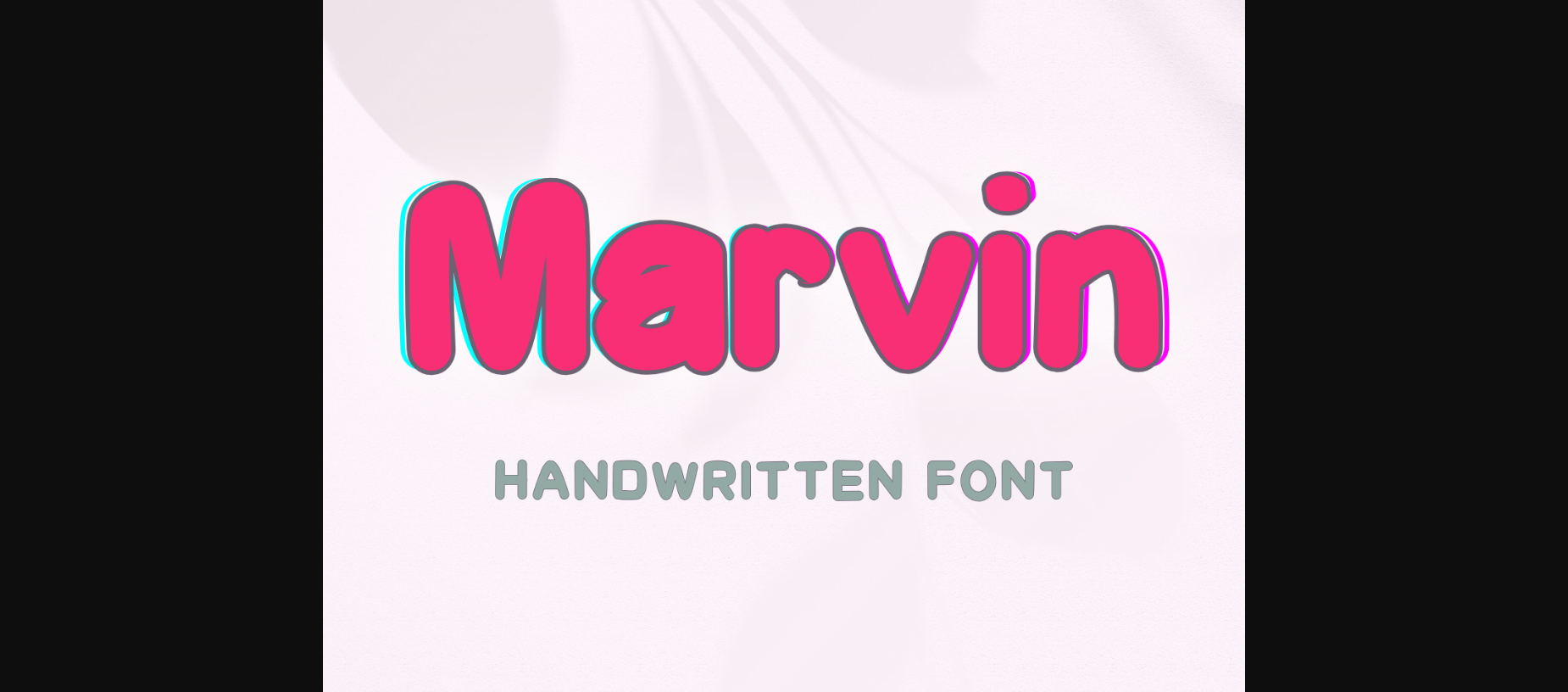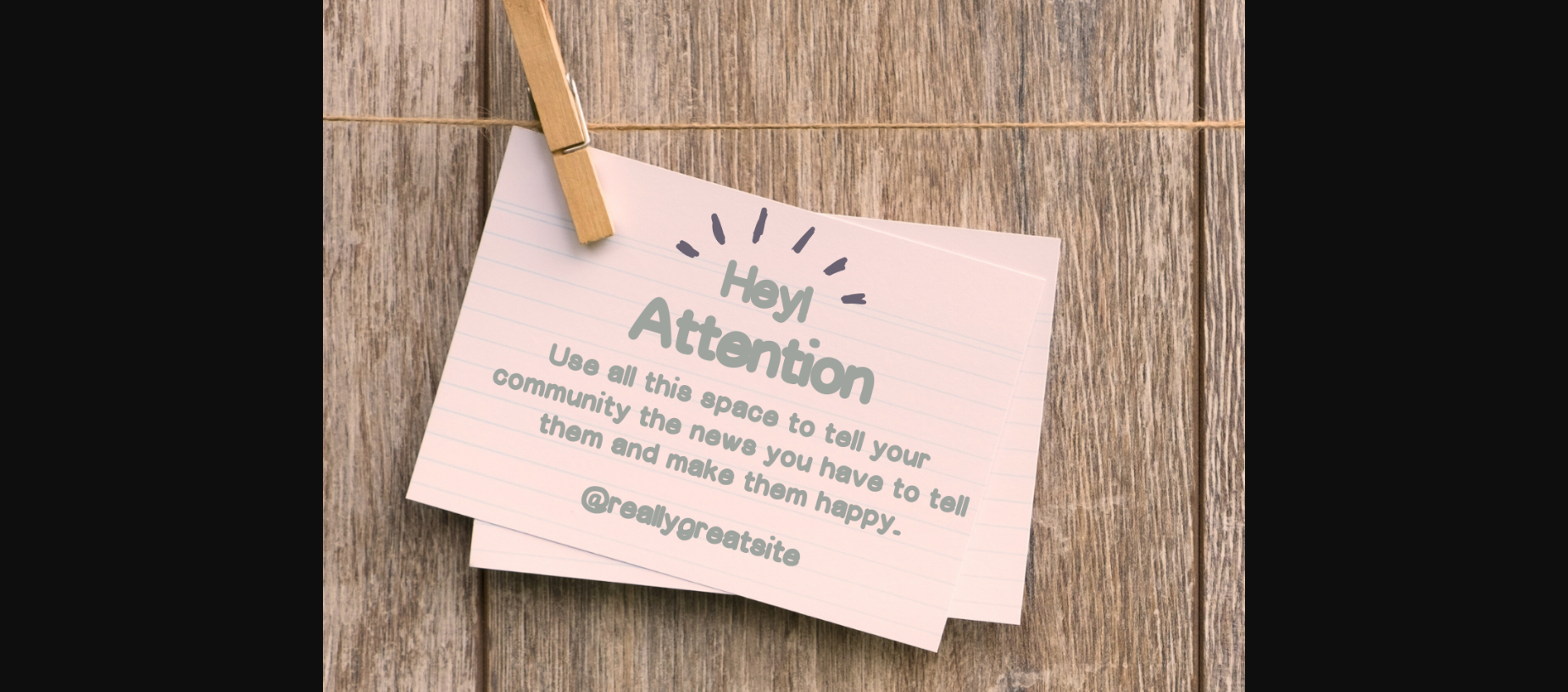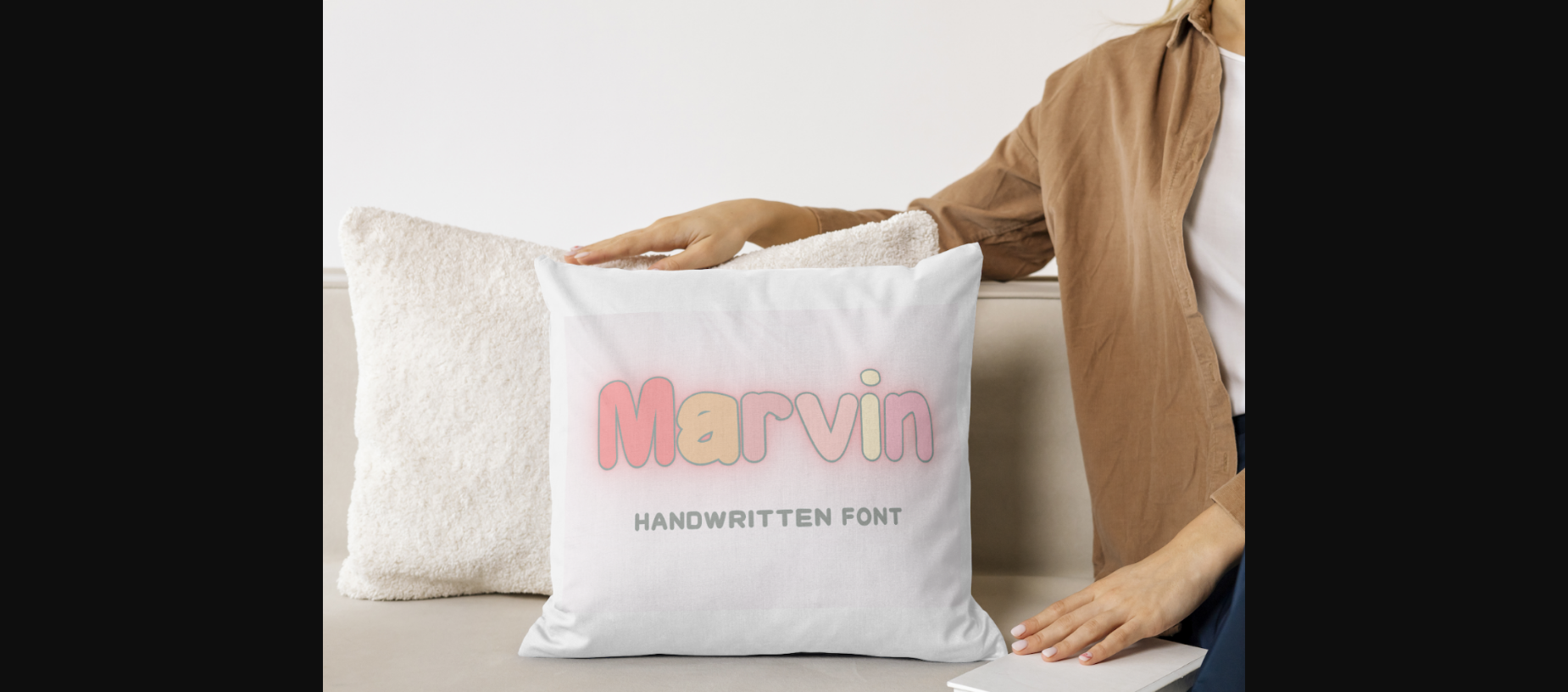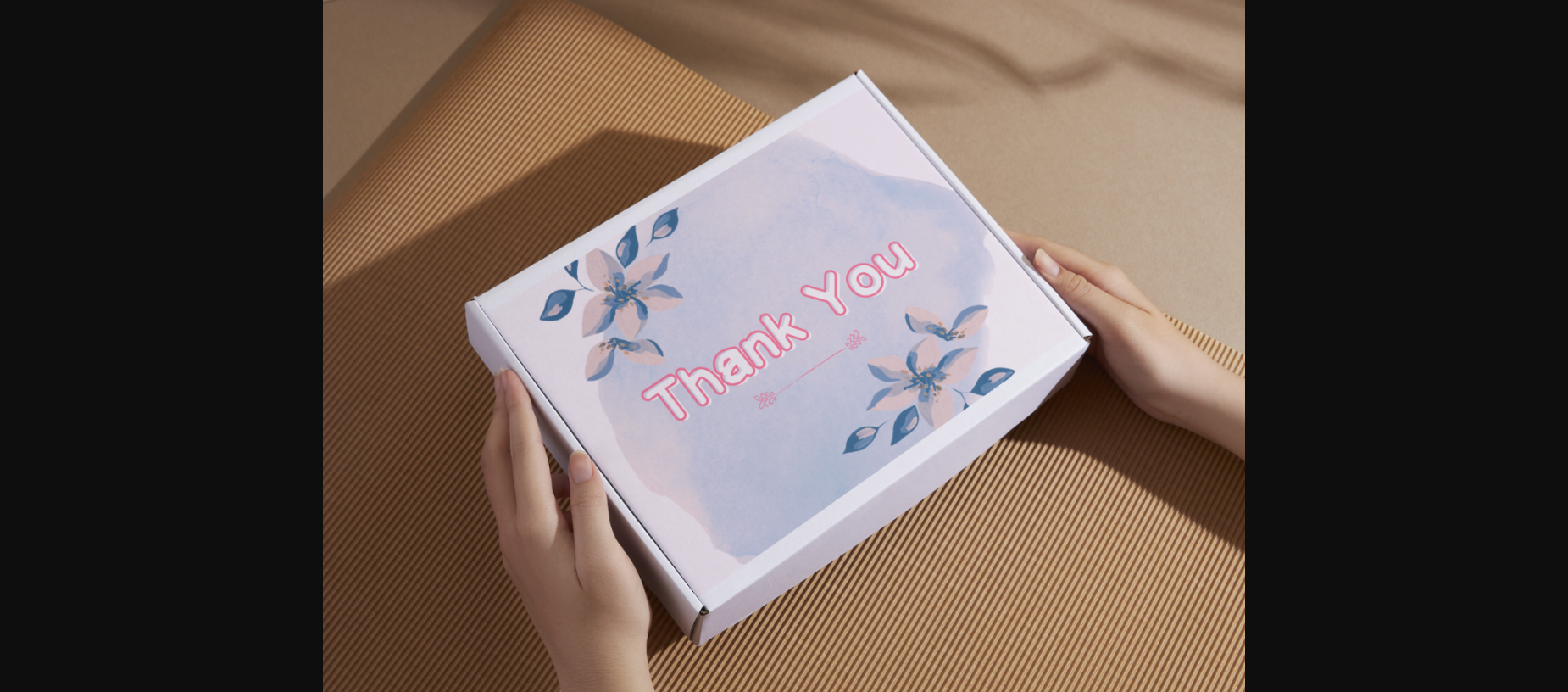
About Marvin Font
Marvin is a gorgeous and bold handwritten font, crafted to give your headlines and logotype projects a stylish touch. This font reads strong, confident, and dynamic and can add tons of nostalgic character to your designs.